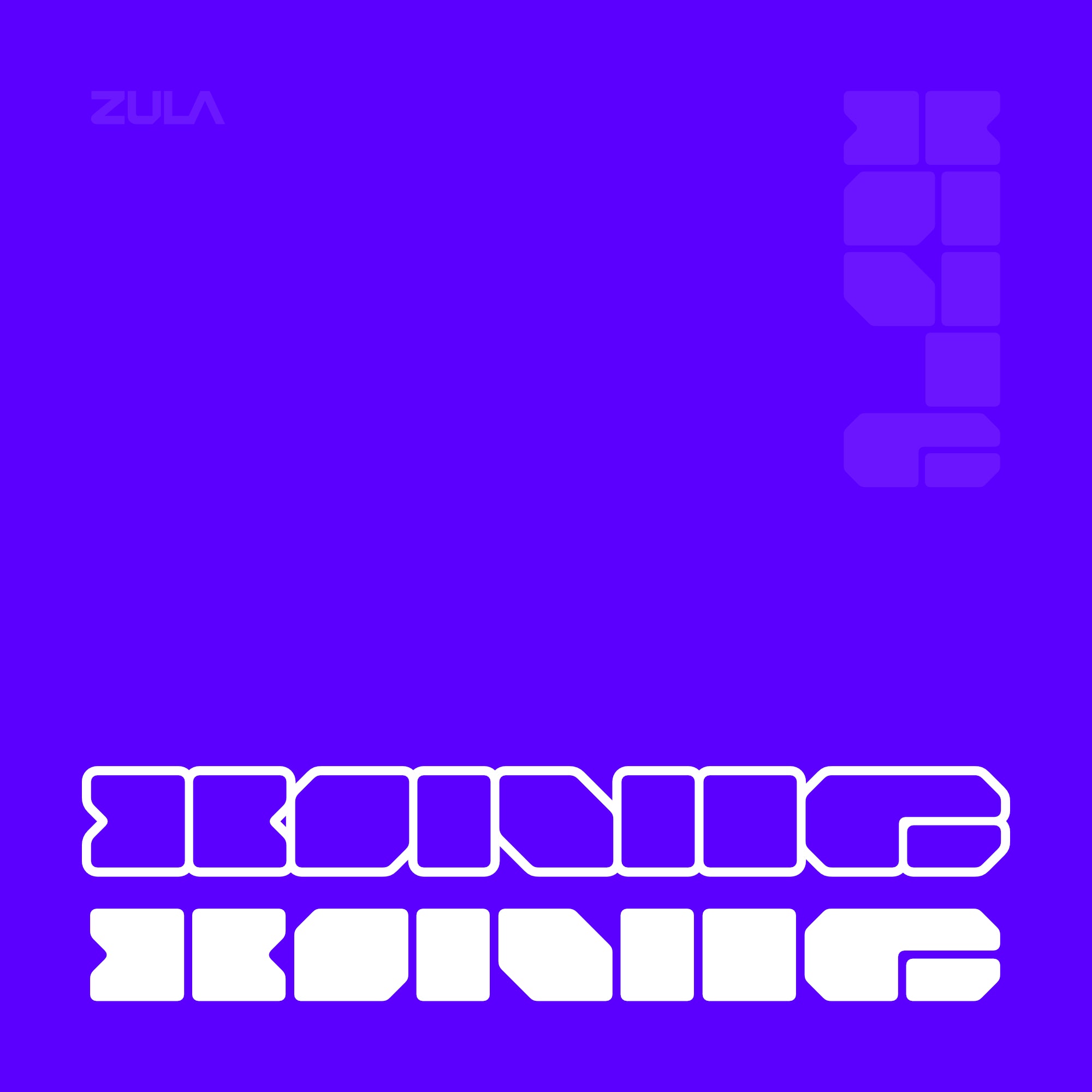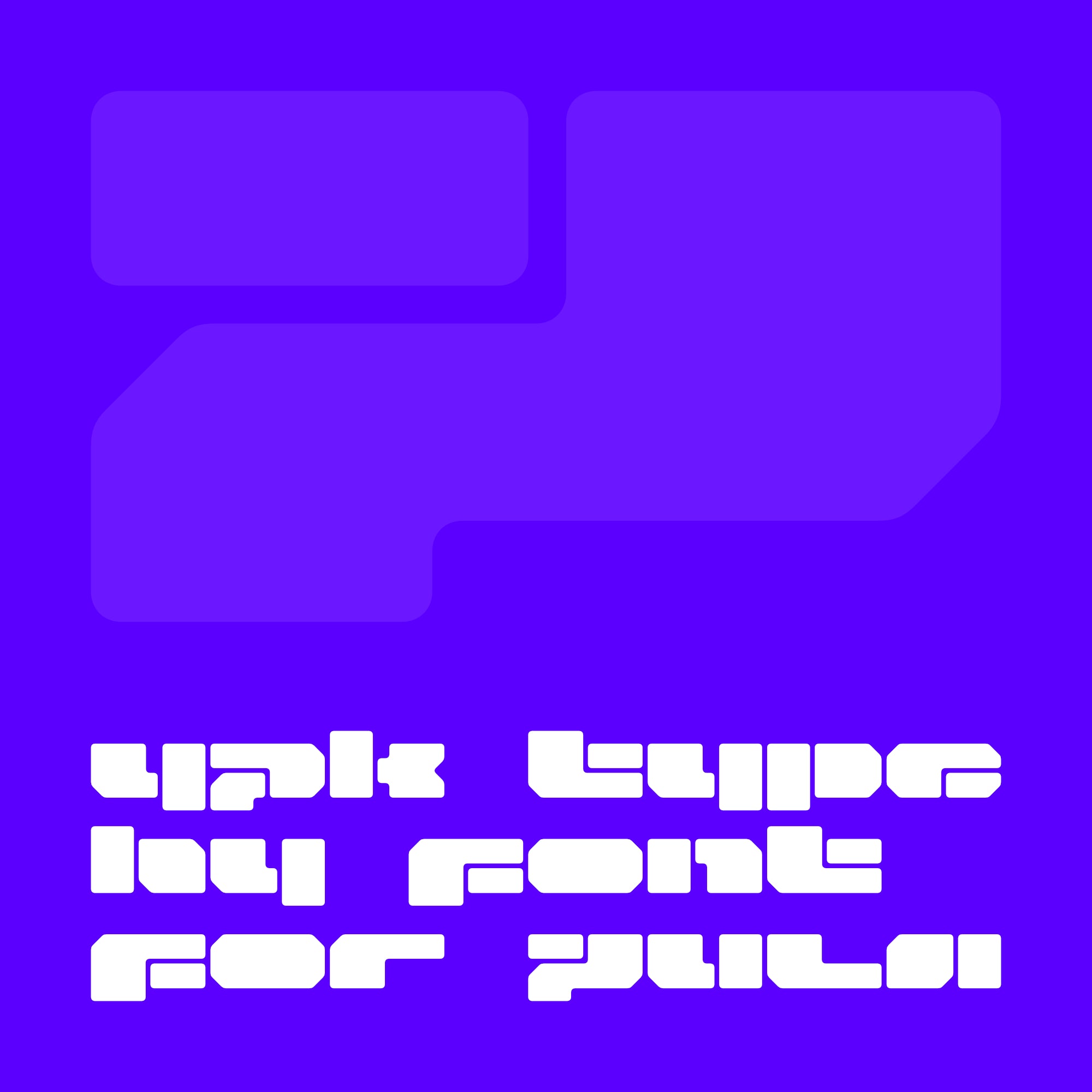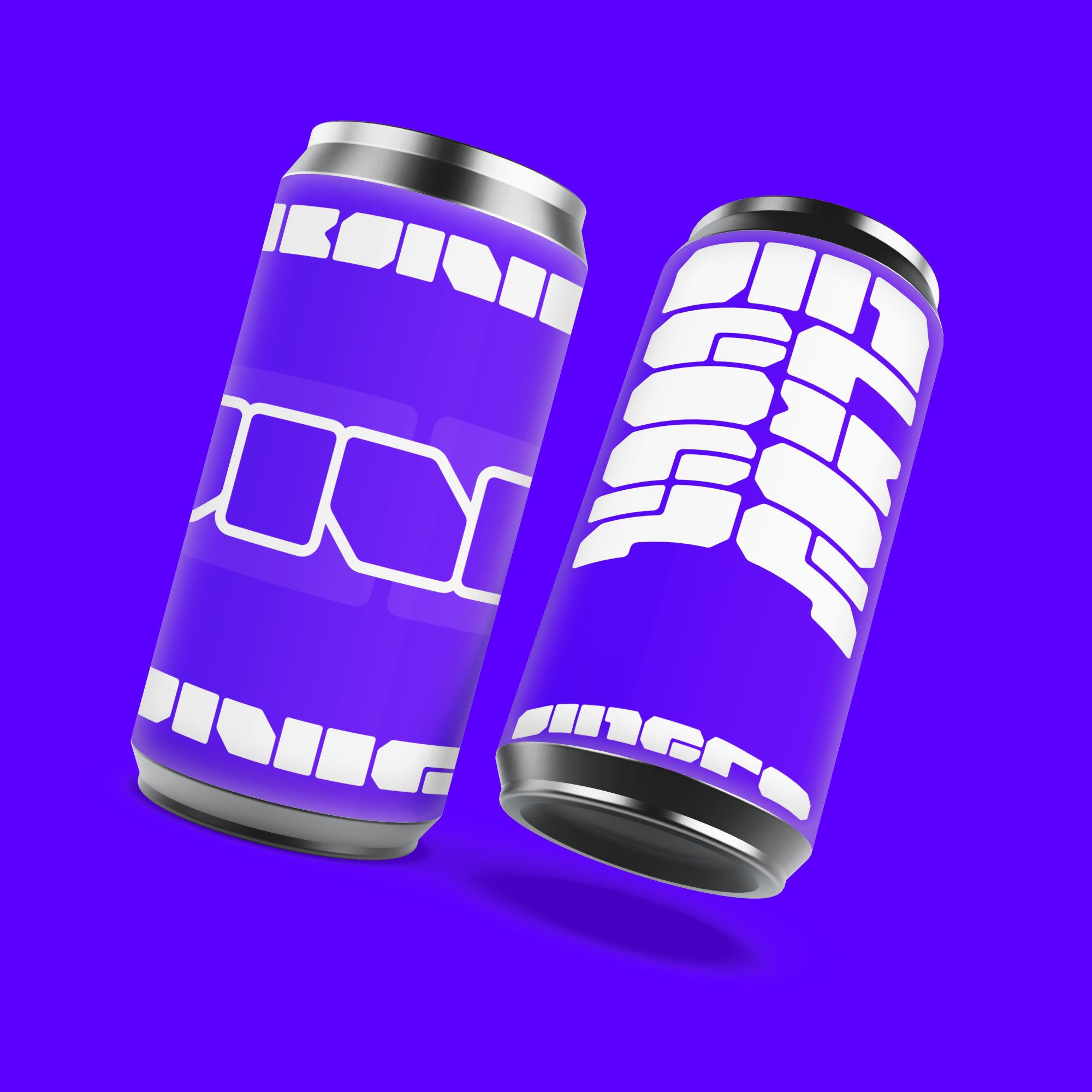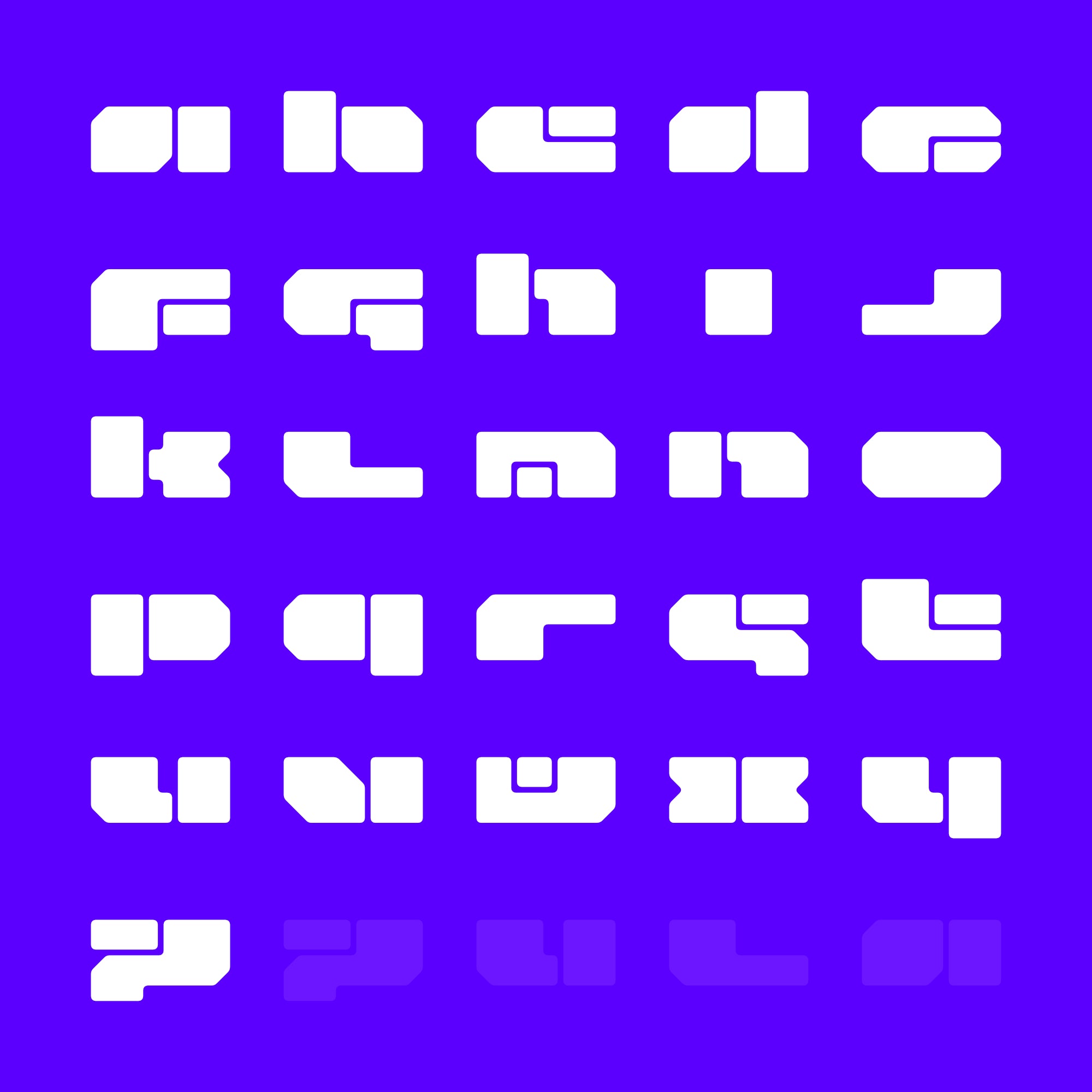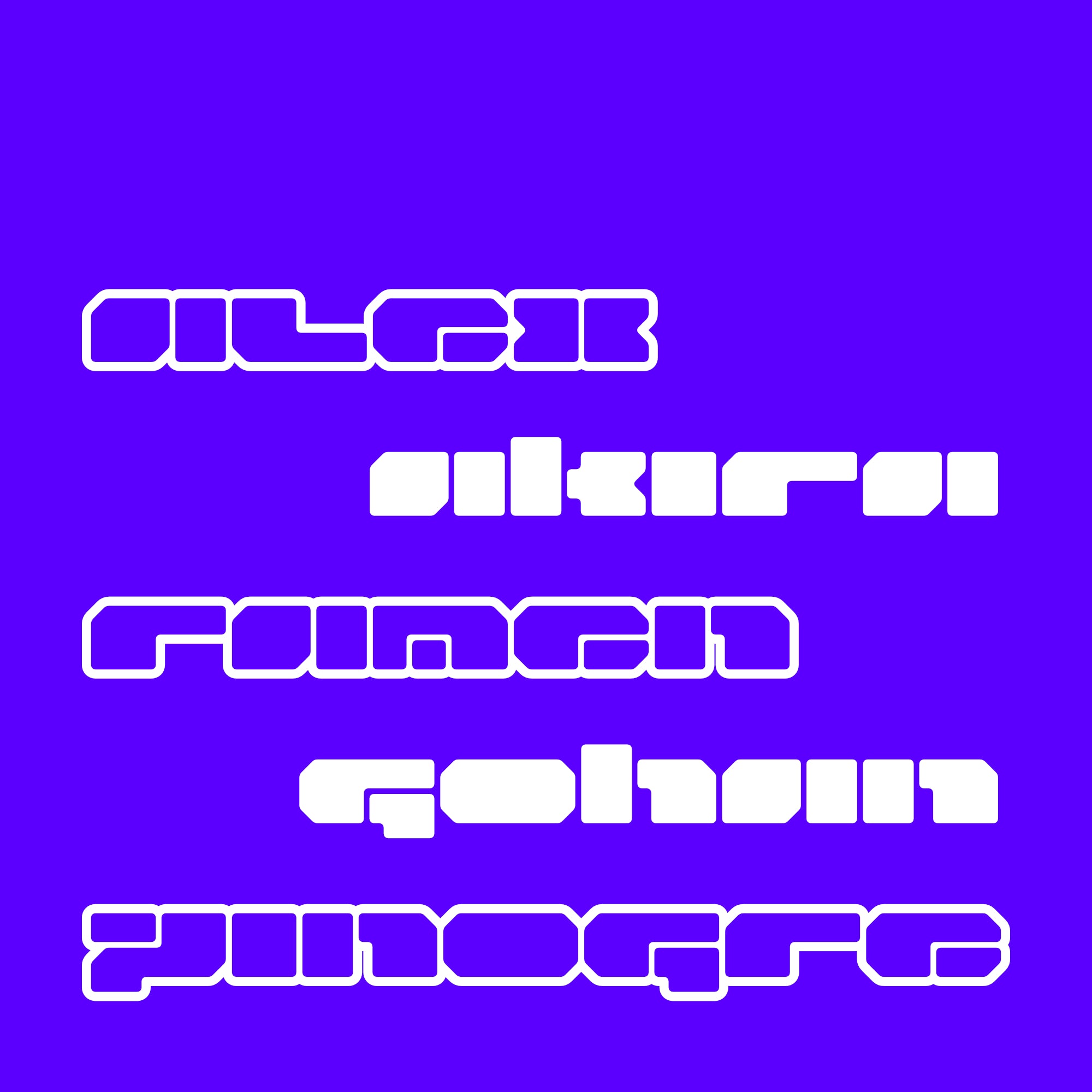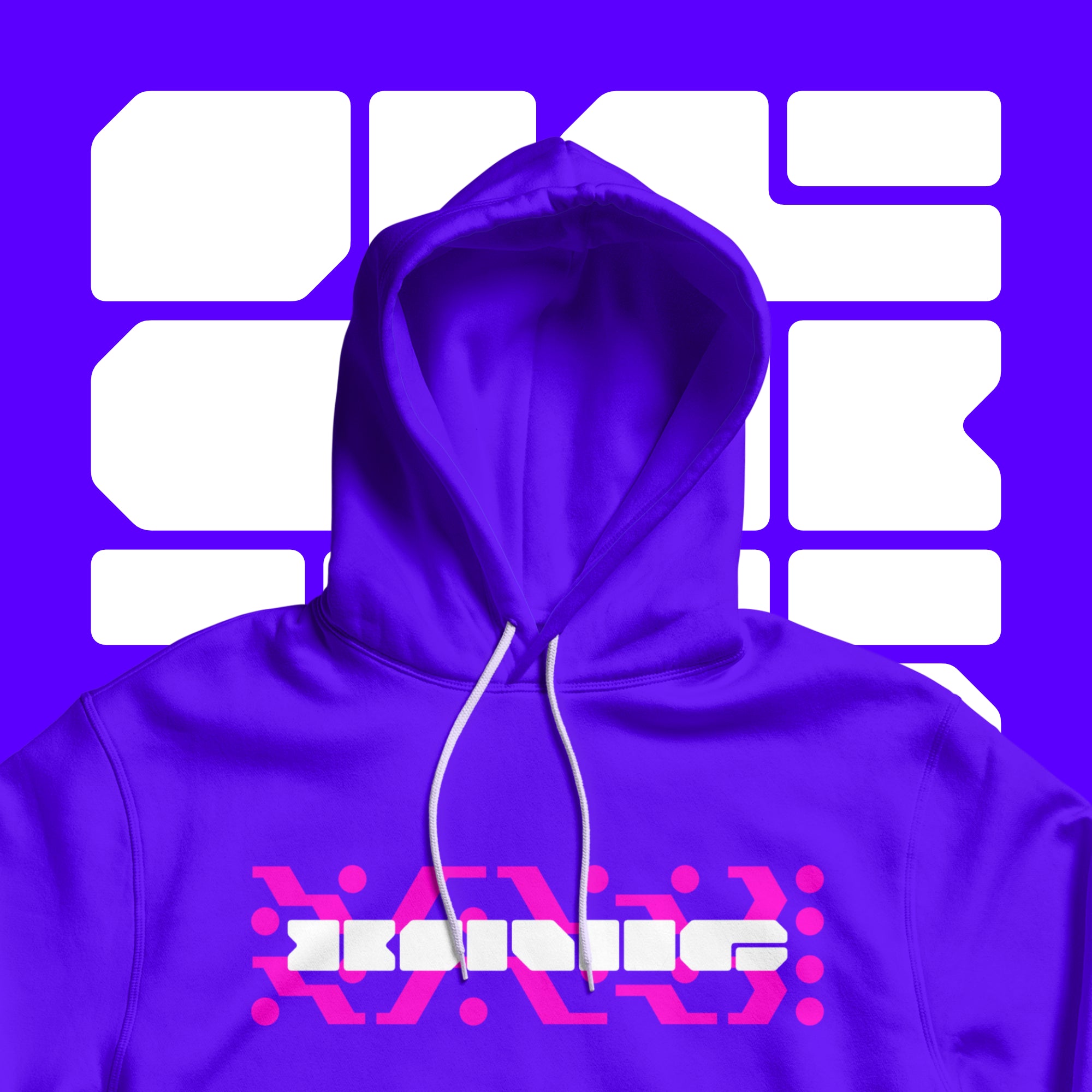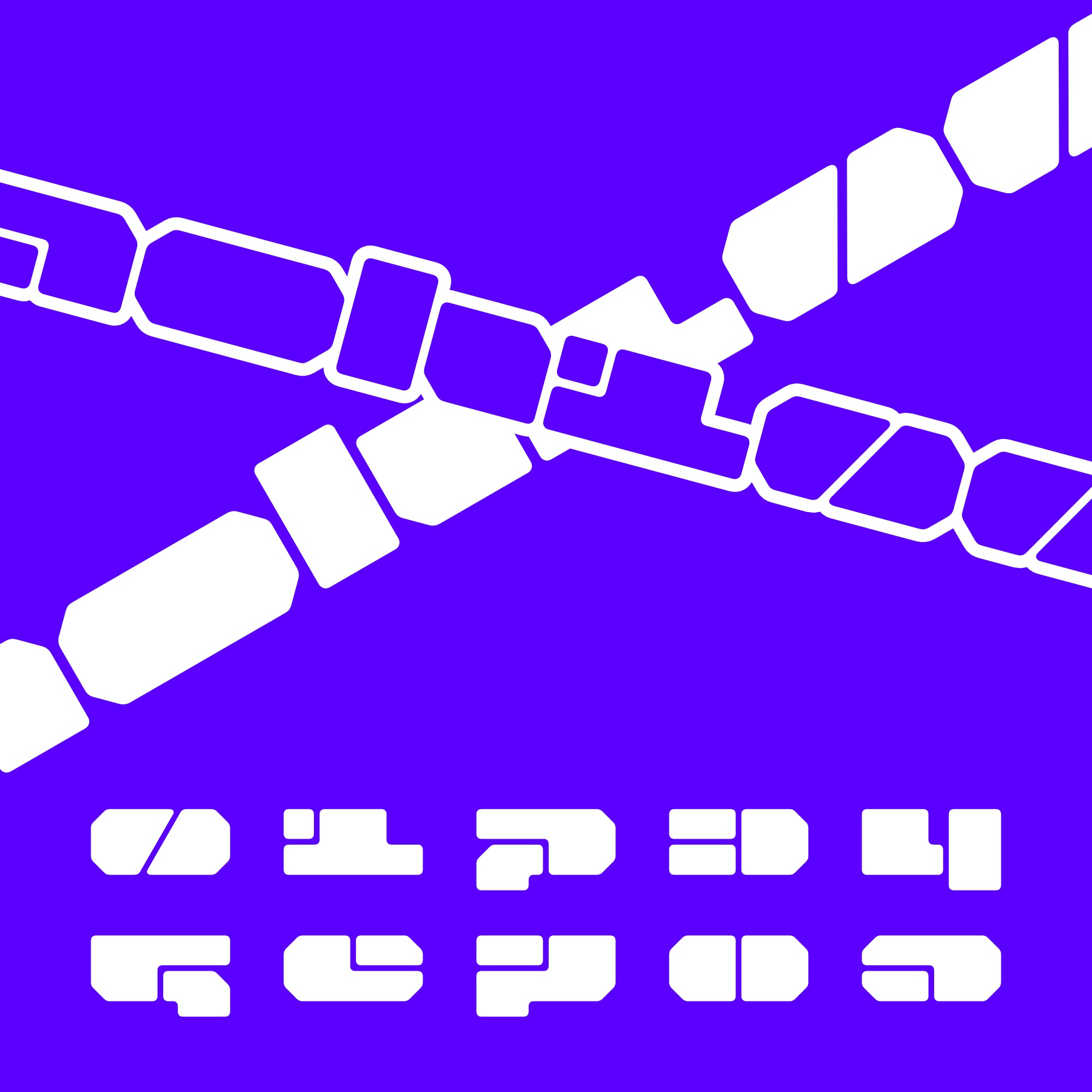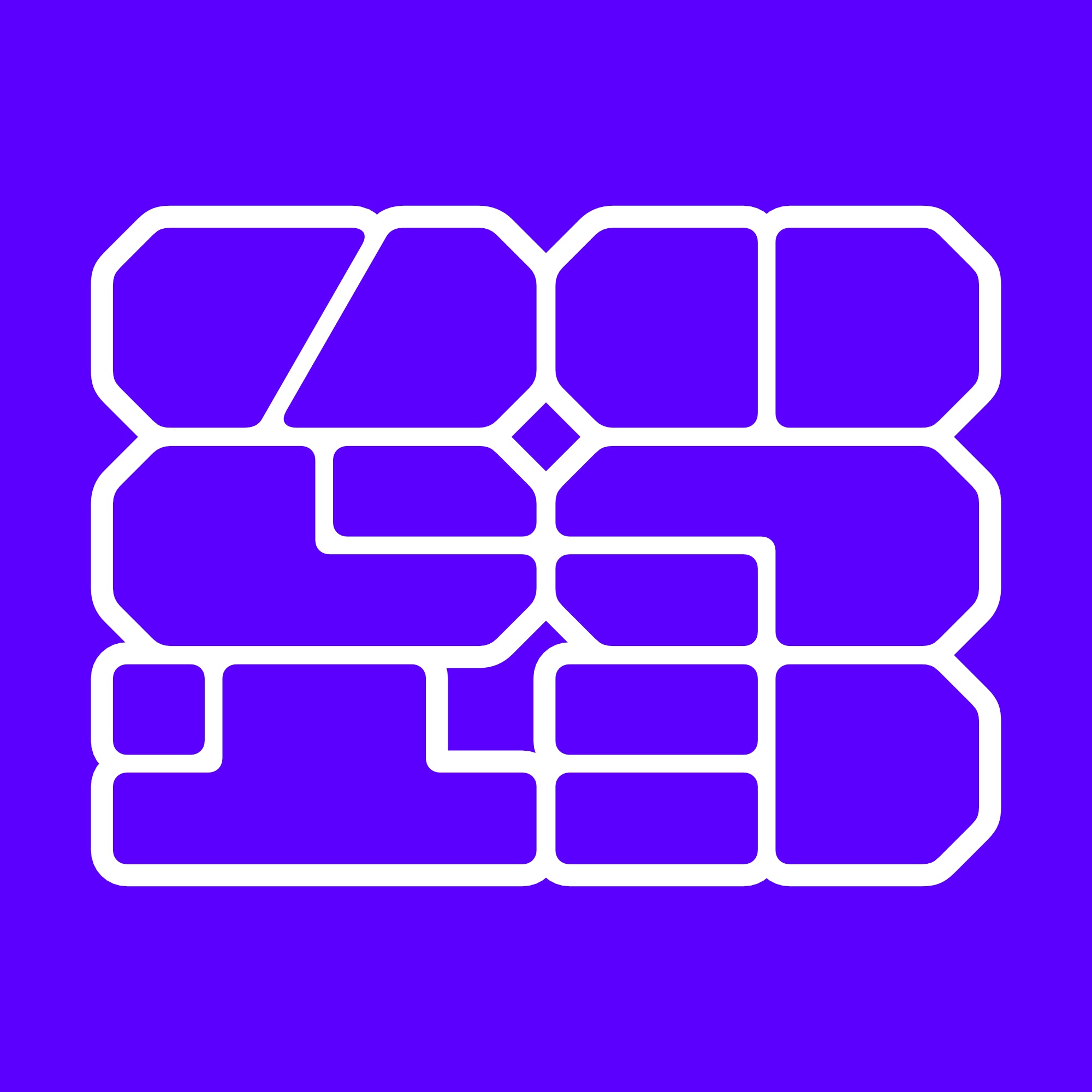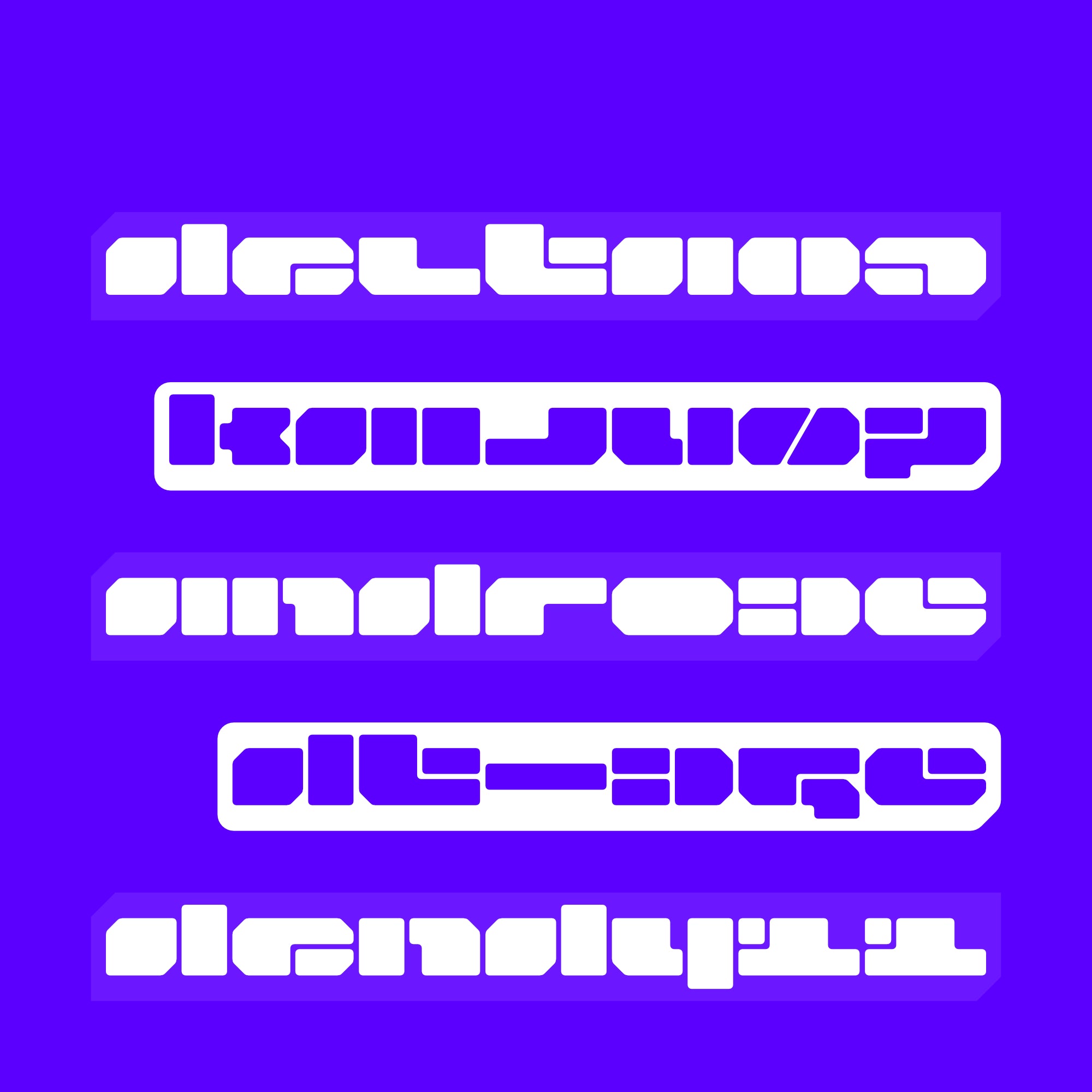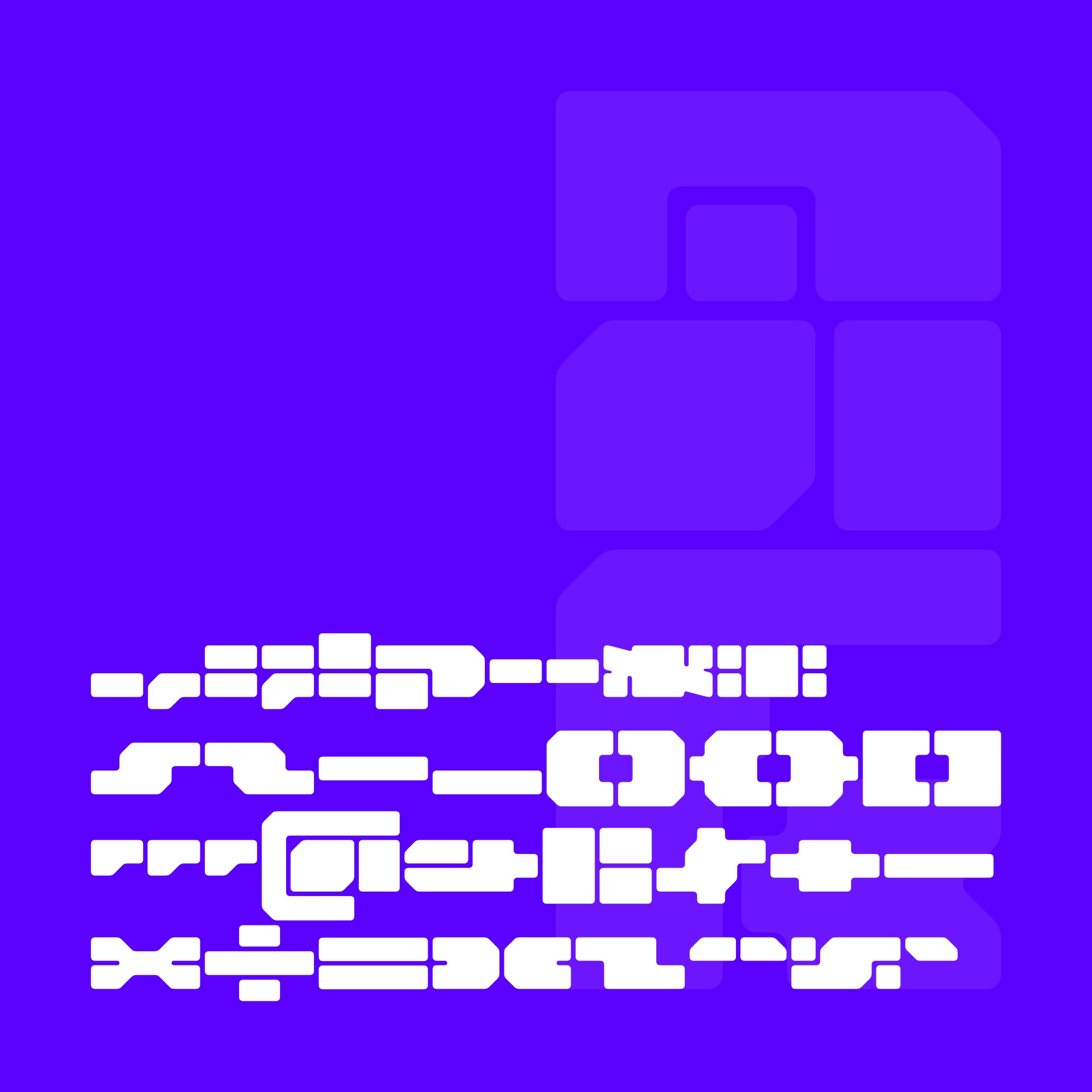
Font For Zula™
XAVIE Typeface
Xavie Typeface is a geometric abstract typeface that gives a retro or y2k feel.
This font is suitable for display, posters, logos, brands, apparel, and more.